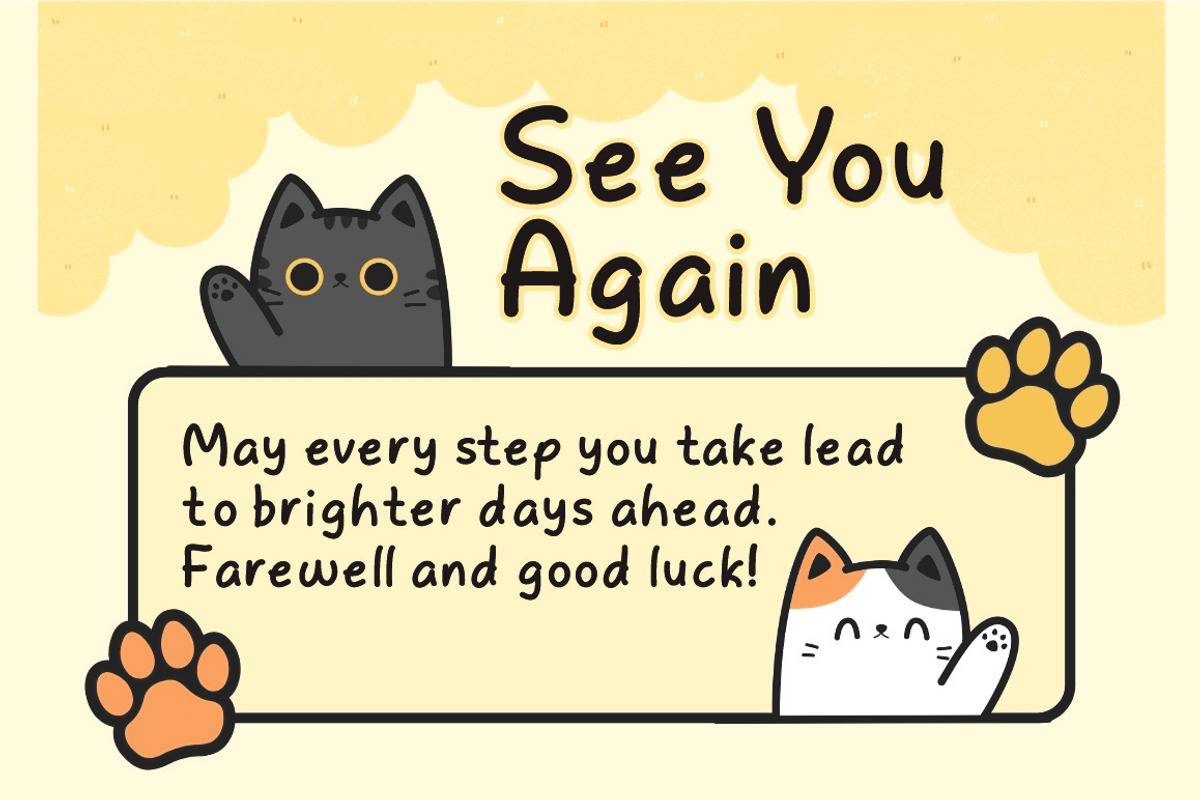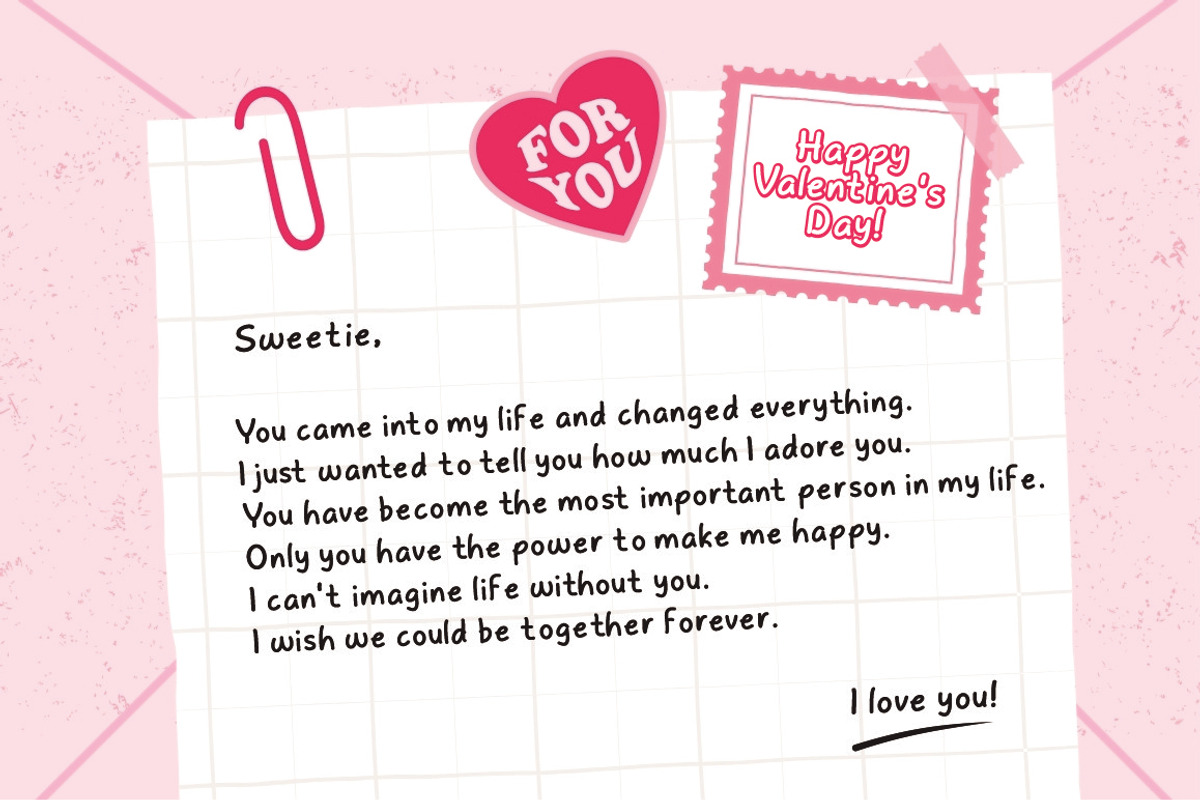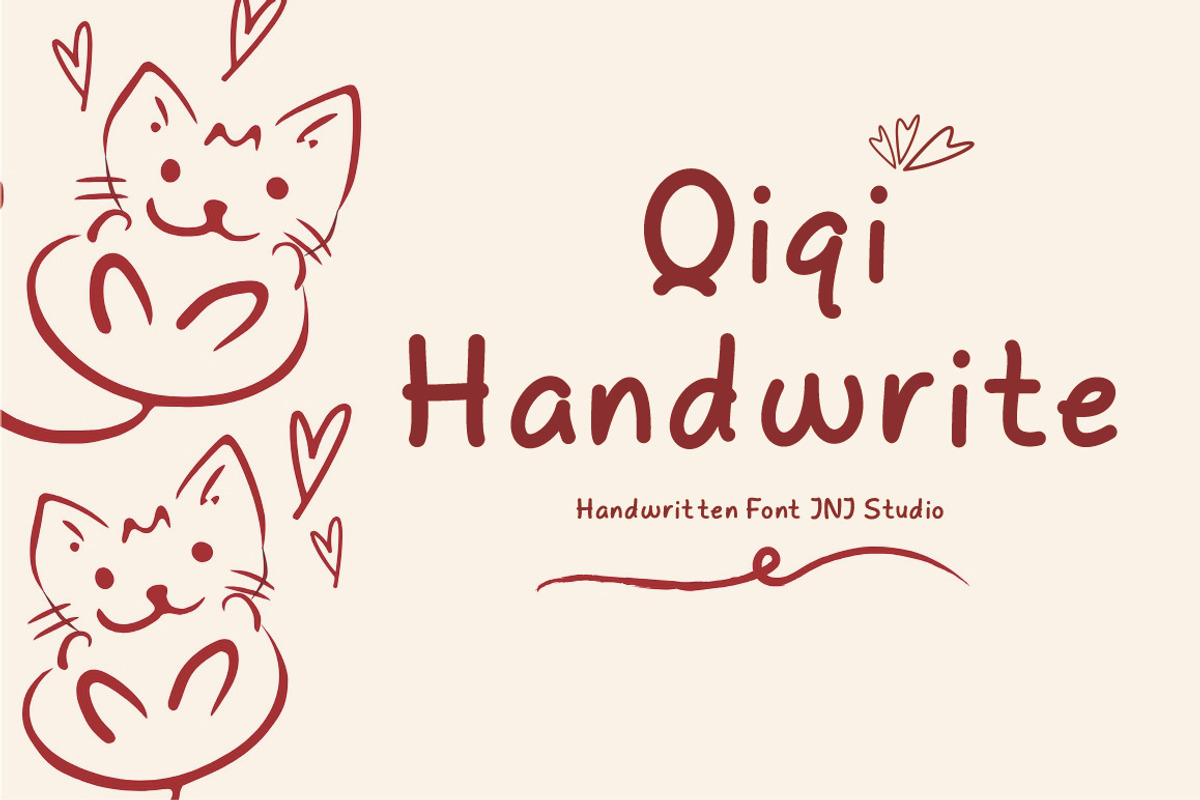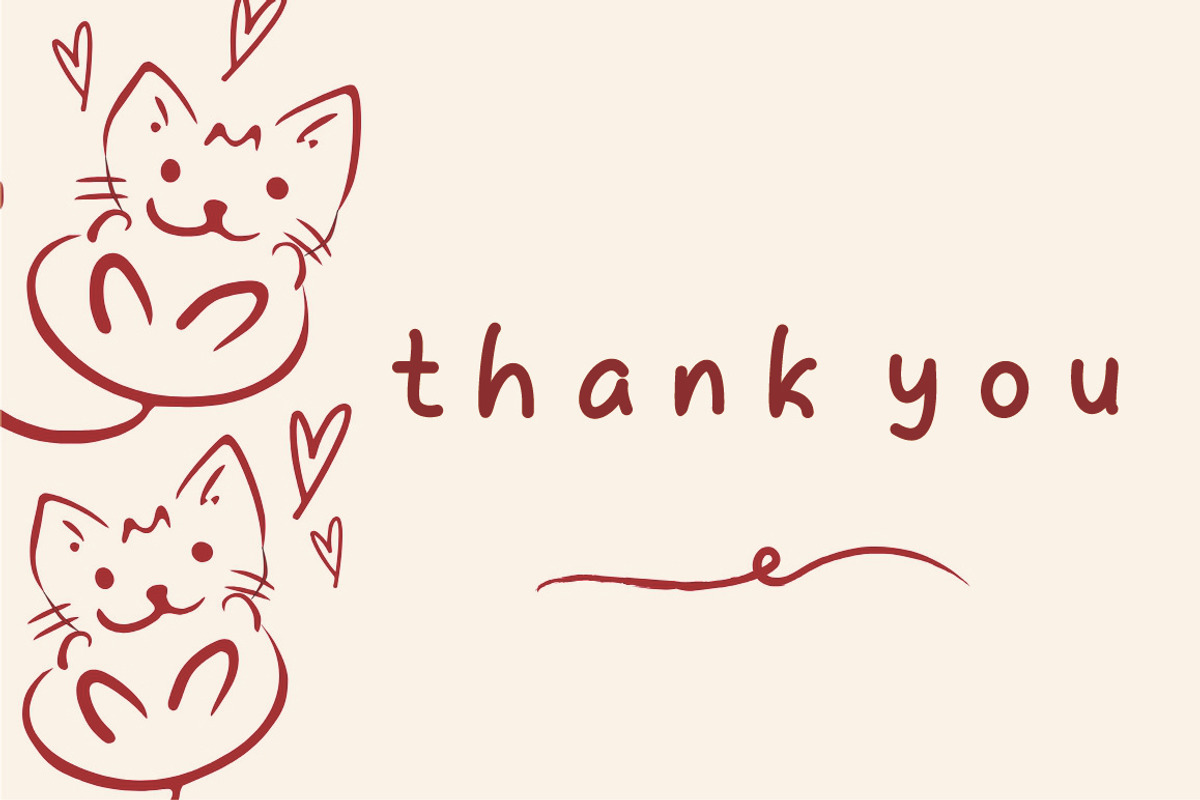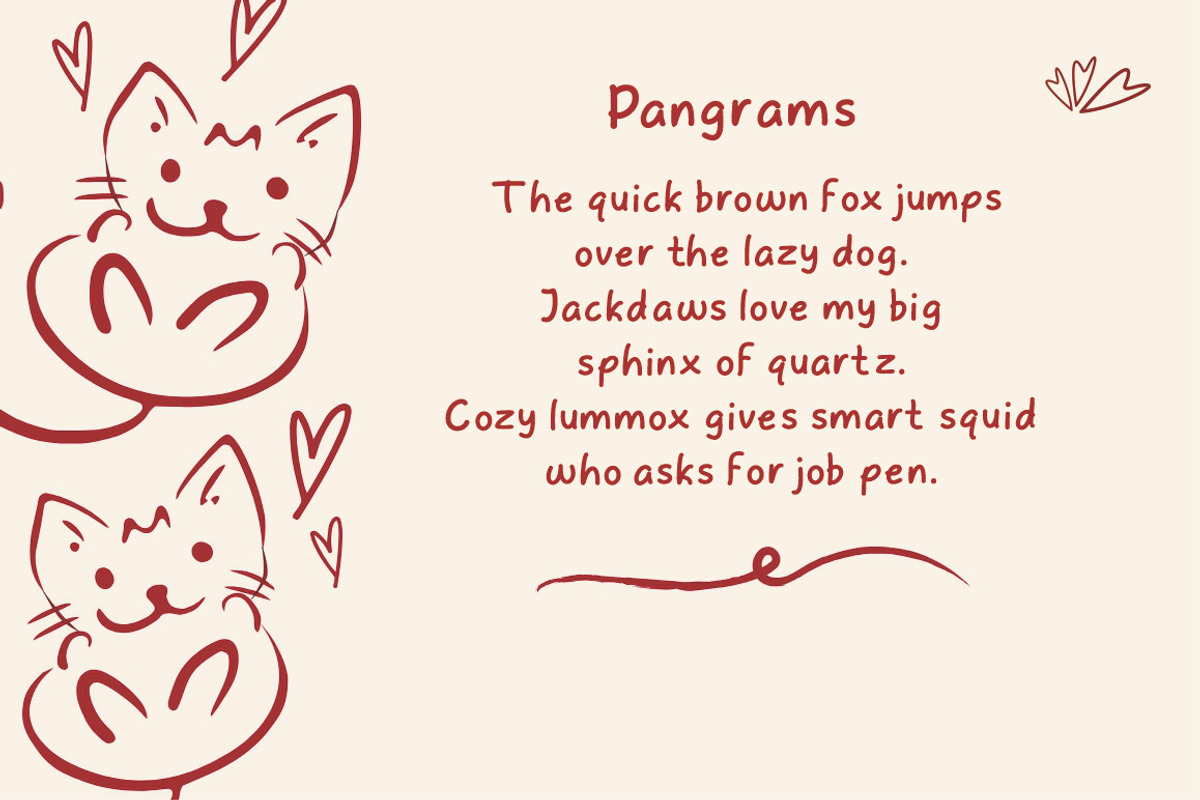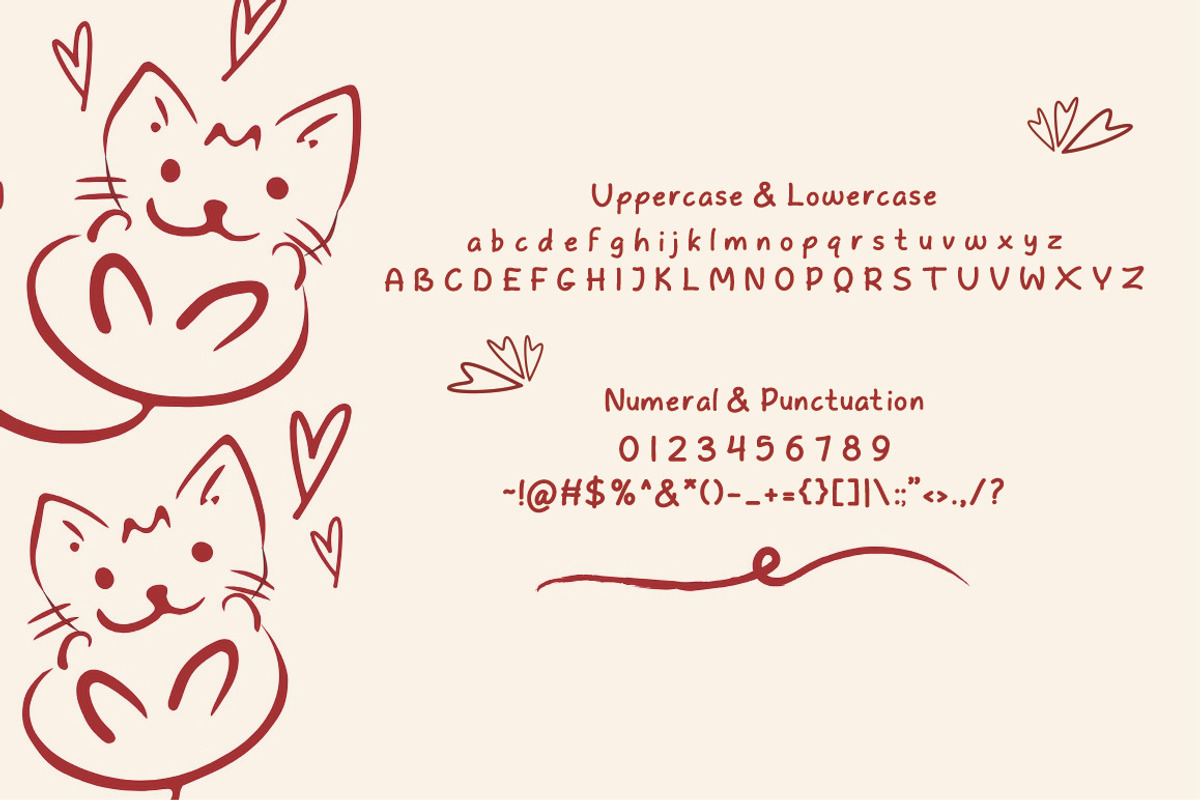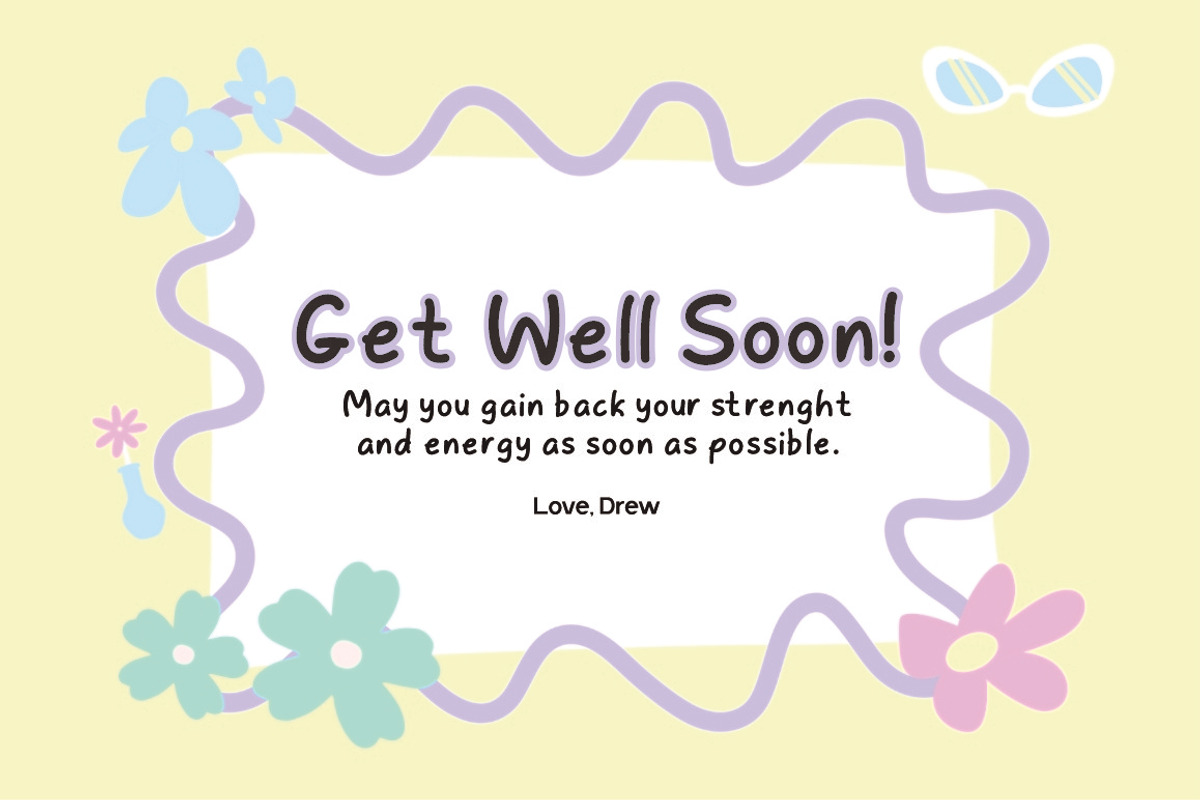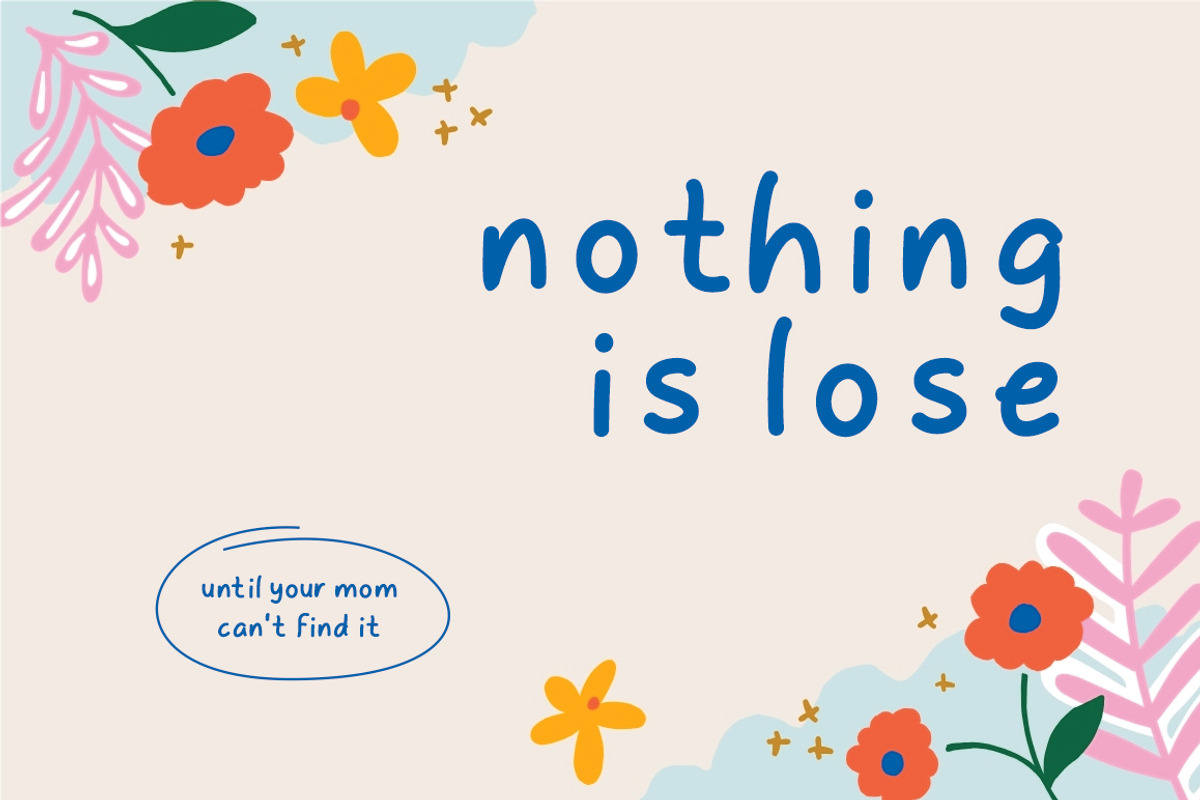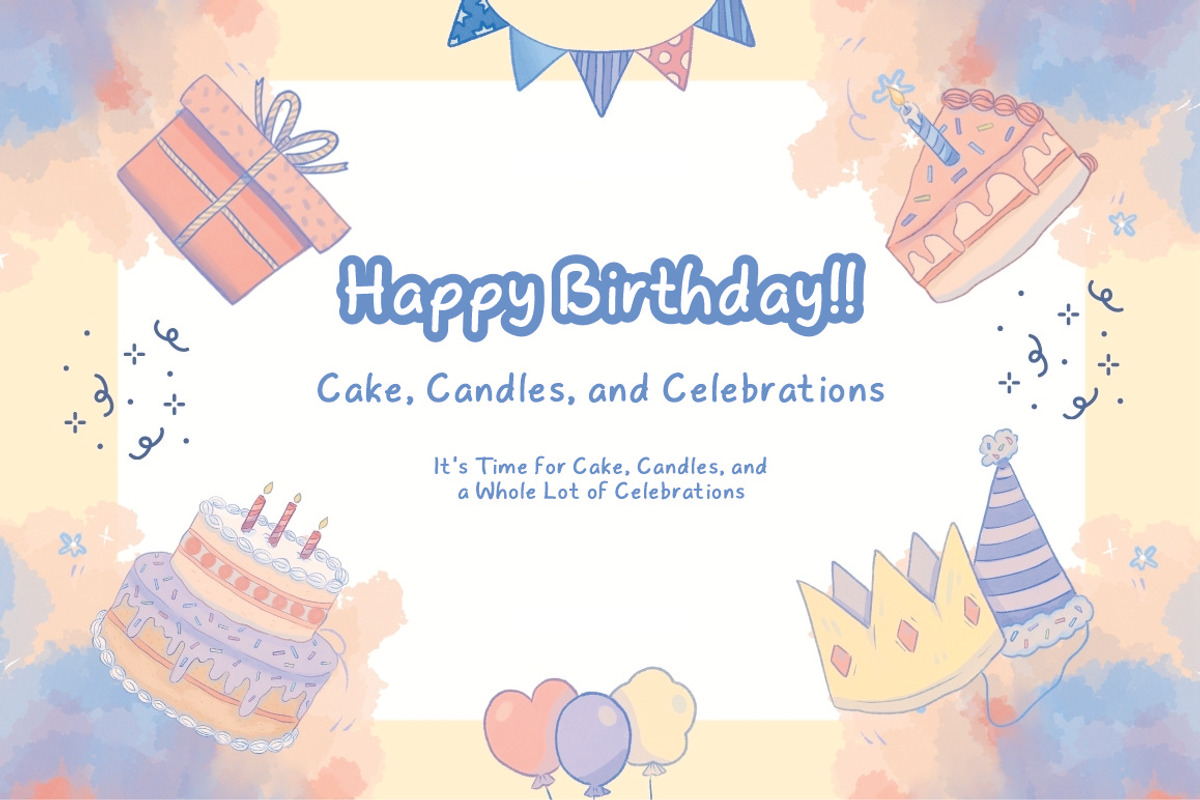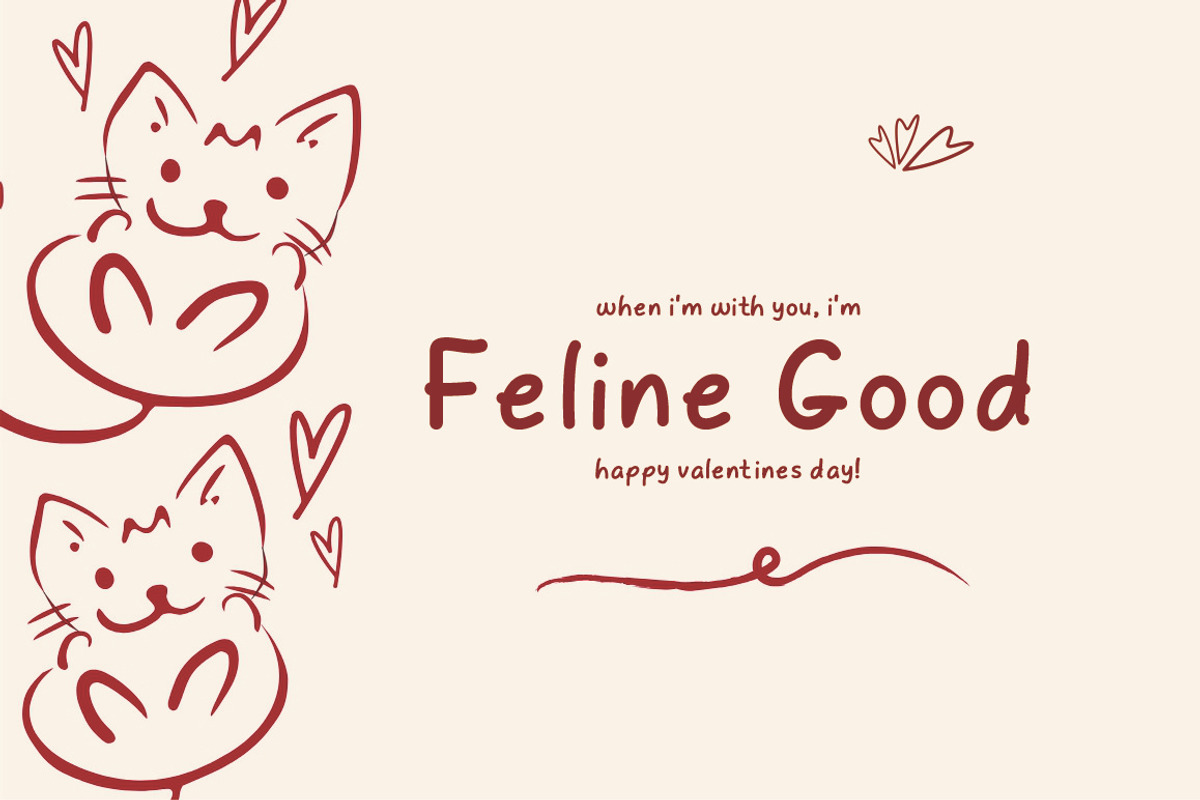
Qiqi Handwrite
Qiqi Handwrite is a charming handwritten font that captures the warmth and spontaneity of natural pen strokes. Designed to feel personal and expressive, this font brings a casual yet elegant touch, making every word look authentic and full of character.
With its slightly irregular lines and playful flow, Qiqi Handwrite is perfect for branding, social media content, quotes, invitations, packaging, and creative projects that need a friendly and human feel. It balances simplicity and style, allowing your message to stand out while still feeling approachable and heartfelt.